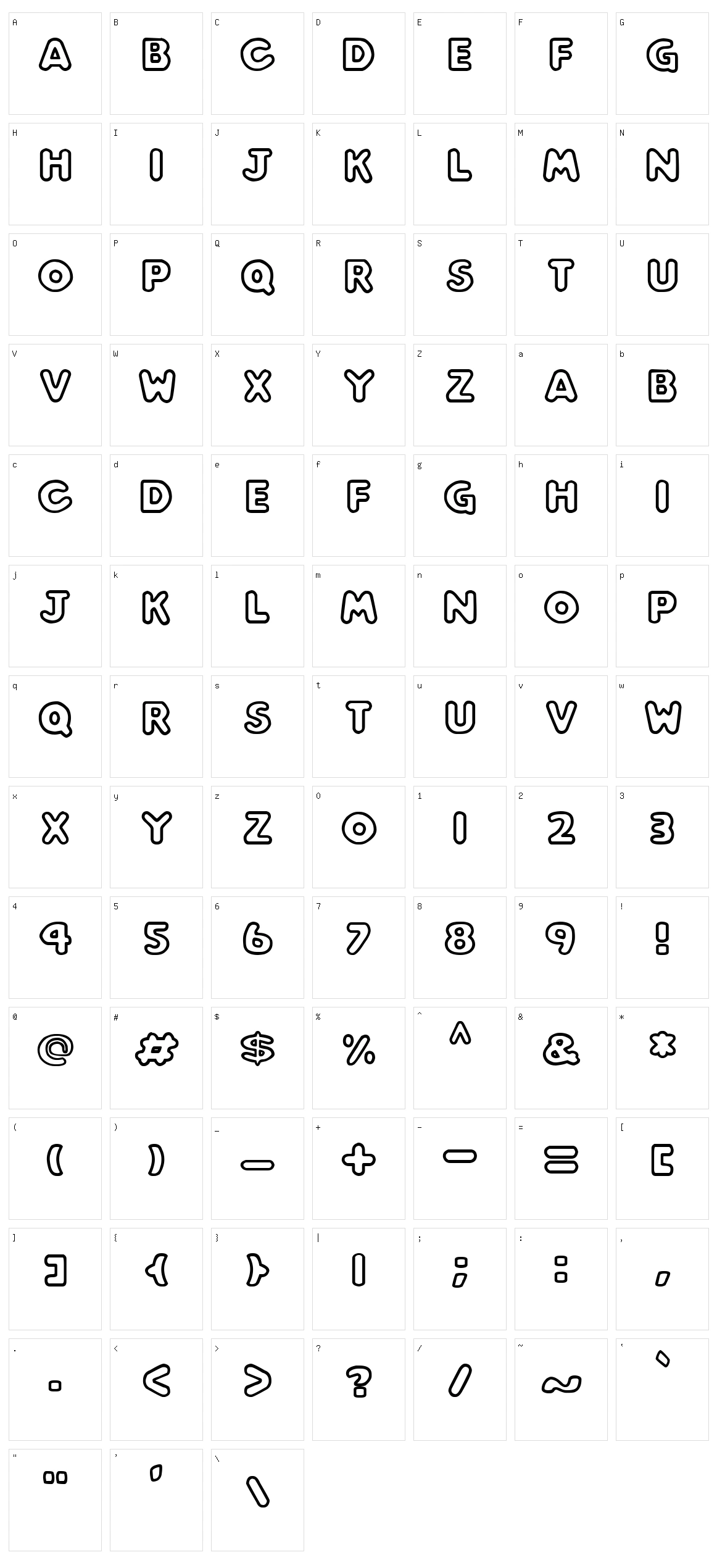
The free font Play Time is carefully designed by Joseph Dawson, showcasing a thoughtful balance of creativity and usability and falls under the Cartoon font style. When you download the ZIP file, it contains only 270.17 KB of font files, making it lightweight and quick to download. Please review the license details below to understand permitted usage and distribution rights. If license information is not available, we recommend using this font for personal projects only or contacting the author directly for commercial usage permissions.
This font was created by Joseph Dawson.